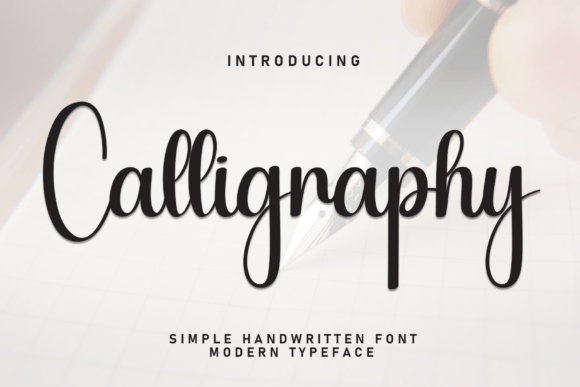
The Art of Beautiful Typography: Exploring Calligraphy Font
Do you remember that magical moment when you finally found the perfect font for your project? Maybe it was a quirky sans-serif for a tech startup or a bold serif for a luxury brand. For me, it was a sweet and friendly handwritten font that stole my heart – the Calligraphy Font. This charming font is perfect for adding a touch of whimsy to your designs, from wedding invitations to children’s book illustrations.
The Calligraphy Font is a versatile and cute font that’s ideal for designers looking to add a fun and personal touch to their work. Its friendly and approachable nature makes it perfect for projects that require a sense of warmth and hospitality. Whether you’re designing a wedding invitation or a card for a special occasion, this font is sure to bring a smile to your clients’ faces.
Key Features of Calligraphy Font
- Unique Characteristics: Calligraphy Font features intricate, handwritten letterforms with varying line widths, flourishes, and swashes, giving it a distinctive, elegant look.
Designer Review: Calligraphy Font
I recently had the chance to work with the Calligraphy Font and overall, I’d say it’s a solid choice for designers looking to add a touch of elegance to their projects. ✨ Here are a few things that stood out to me:
- Elegant Aesthetic: The Calligraphy Font has a beautiful, flowing style that’s perfect for adding a touch of sophistication to any design.
- High-Quality Vectors: The font includes high-quality vector versions that can be easily scaled up or down without losing any detail.
- Easy to Use: The font is easy to use, even for designers who aren’t experienced with calligraphy-style fonts.
- Limited Character Set: The font only includes a limited character set, which may not be suitable for designs that require a lot of text.
- No Bold or Italic Variations: The font only includes regular-weight versions, which may not be suitable for designs that require bold or italic text.
Overall, I’d say the Calligraphy Font is a great choice for designers who want to add a touch of elegance to their projects. While it may have some limitations, it’s a solid choice for anyone looking for a high-quality calligraphy font.